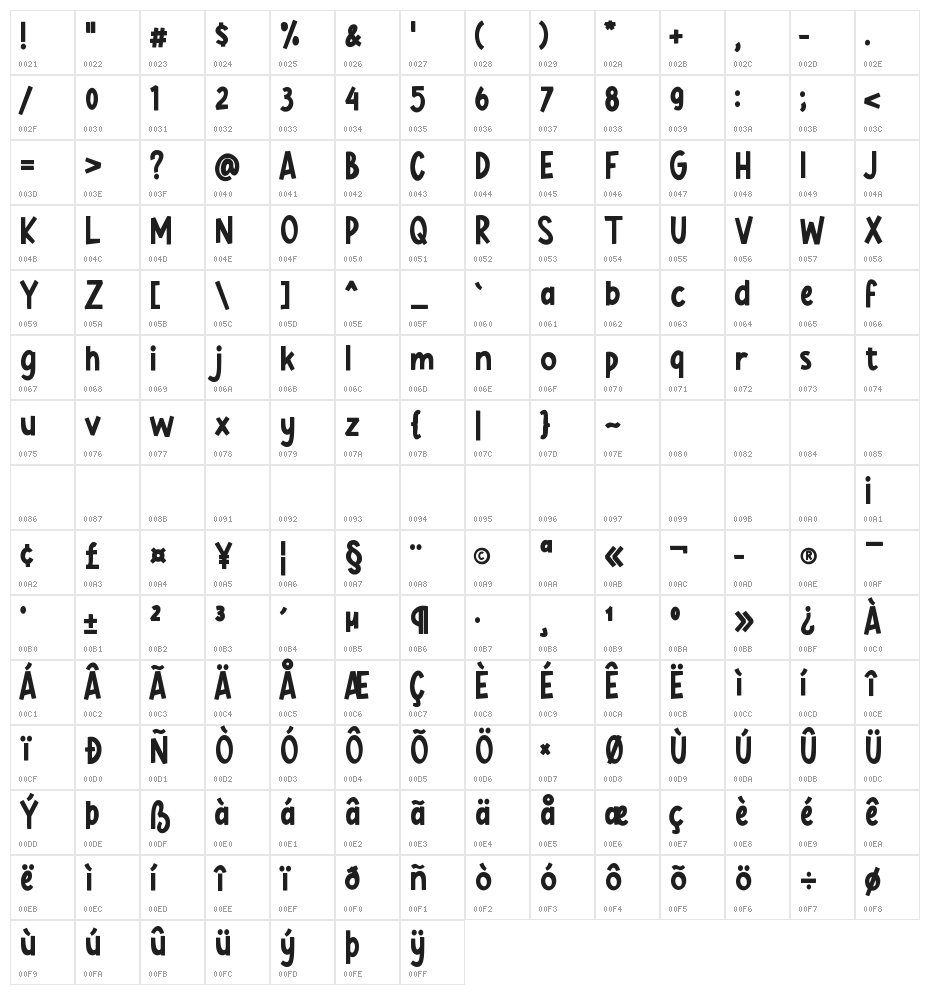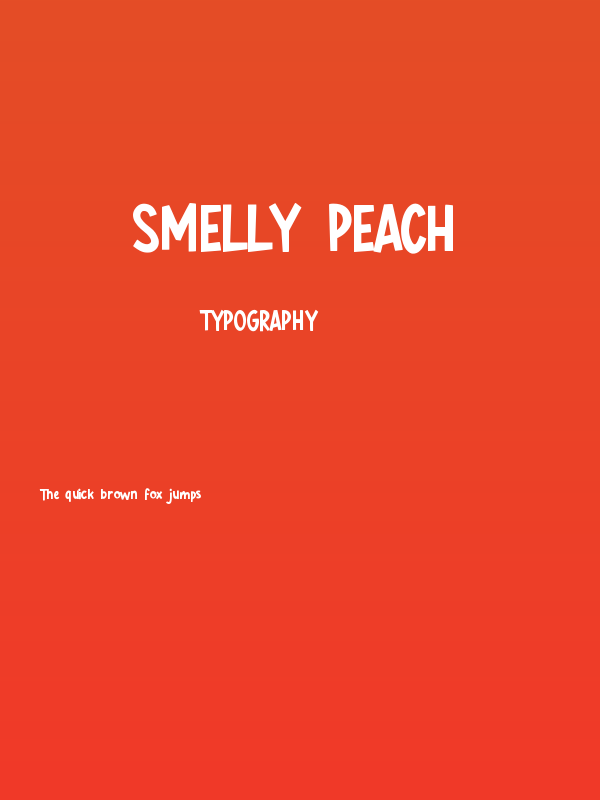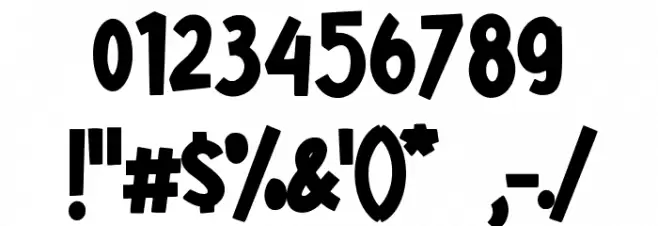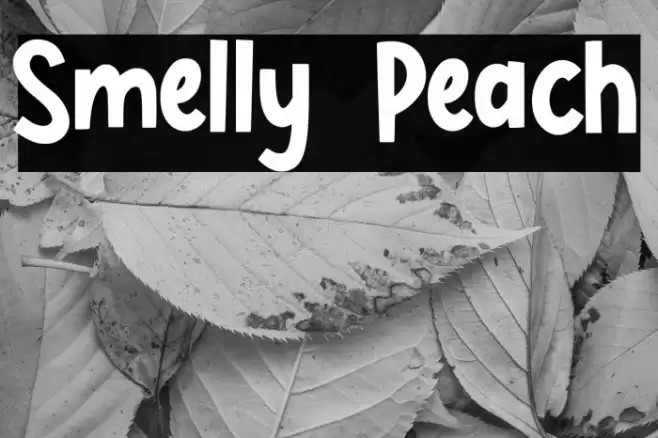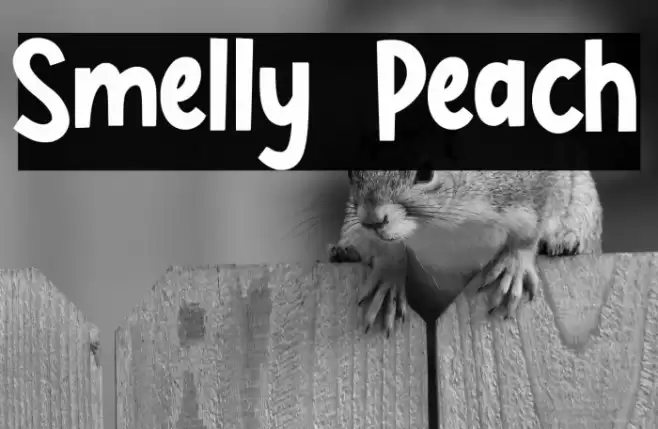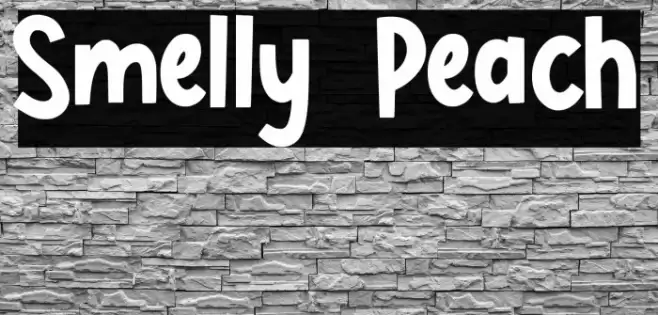
Smelly Peach Font
Smelly Peach Description
This playful and bold font features a hand-drawn aesthetic with slightly irregular strokes, giving it a lively and informal appearance. The uppercase letters are tall and robust, while the lowercase letters maintain a consistent style with rounded edges and a friendly demeanor. The numerals are equally bold, ensuring readability and a cohesive look across all characters. Special characters are designed to match the overall whimsical style, making this font suitable for creative and fun projects. Its unique charm is perfect for capturing attention and conveying a sense of joy and spontaneity.
| Use Case | Logos, Headlines, Posters |
| Proposed Projects | Ideal for children's books, playful branding, party invitations, and creative posters. |